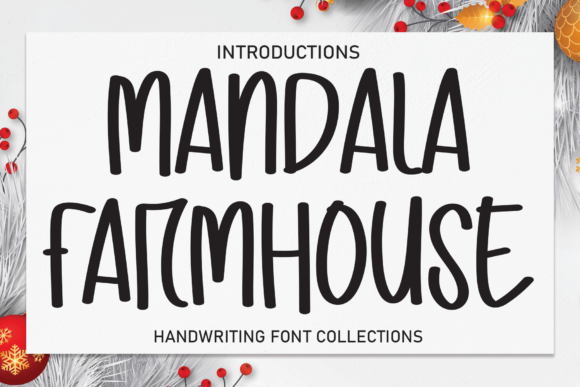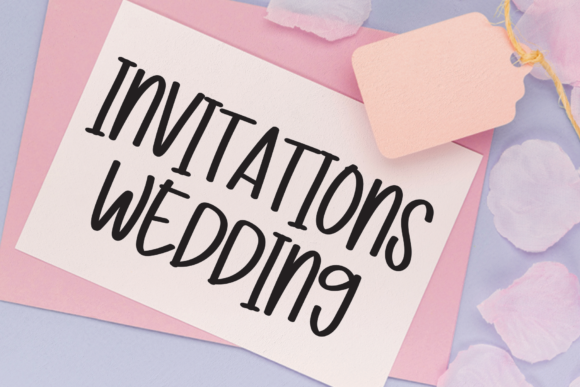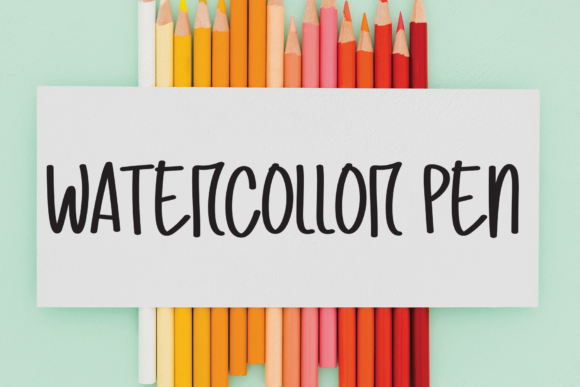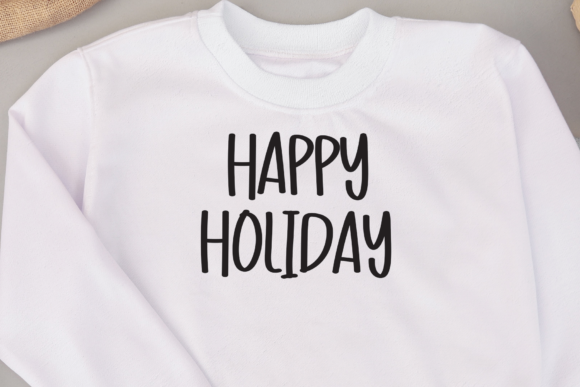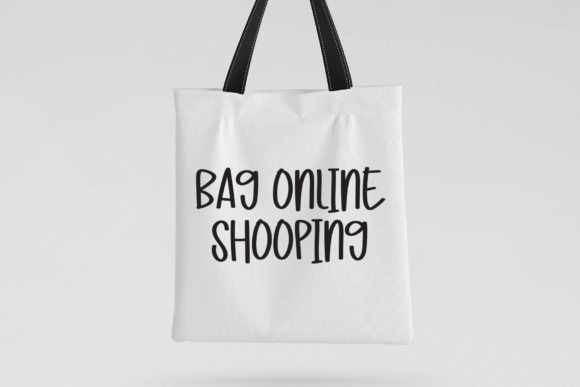
Mandala Farmhouse Font
About Mandala Farmhouse Font
Mandala Farmhouse is an authentic and beautifully flowing handwritten font. Its stylish characters are perfect for wall displays, wedding invitations, social media posts, logos, advertisements, product packaging, product designs, labels, photography, watermarks, invitations, stationery, and any project that requires a handwritten taste.